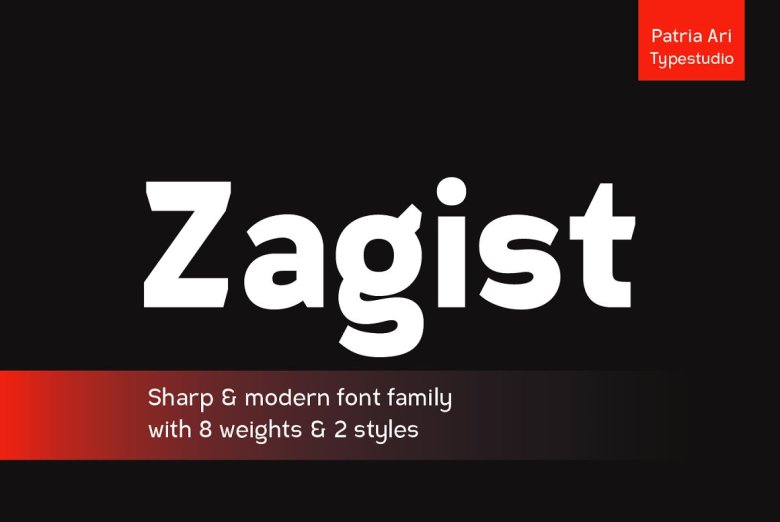
Zagist Font
Zagist Sans Serif Font can be used for all headline sizes, editorial design and branding projects, packaging design as well as web and broadcast use. It features modern shapes with sharp angles on every glyph for optimal use in all these areas.
Zagist Sans Serif Font